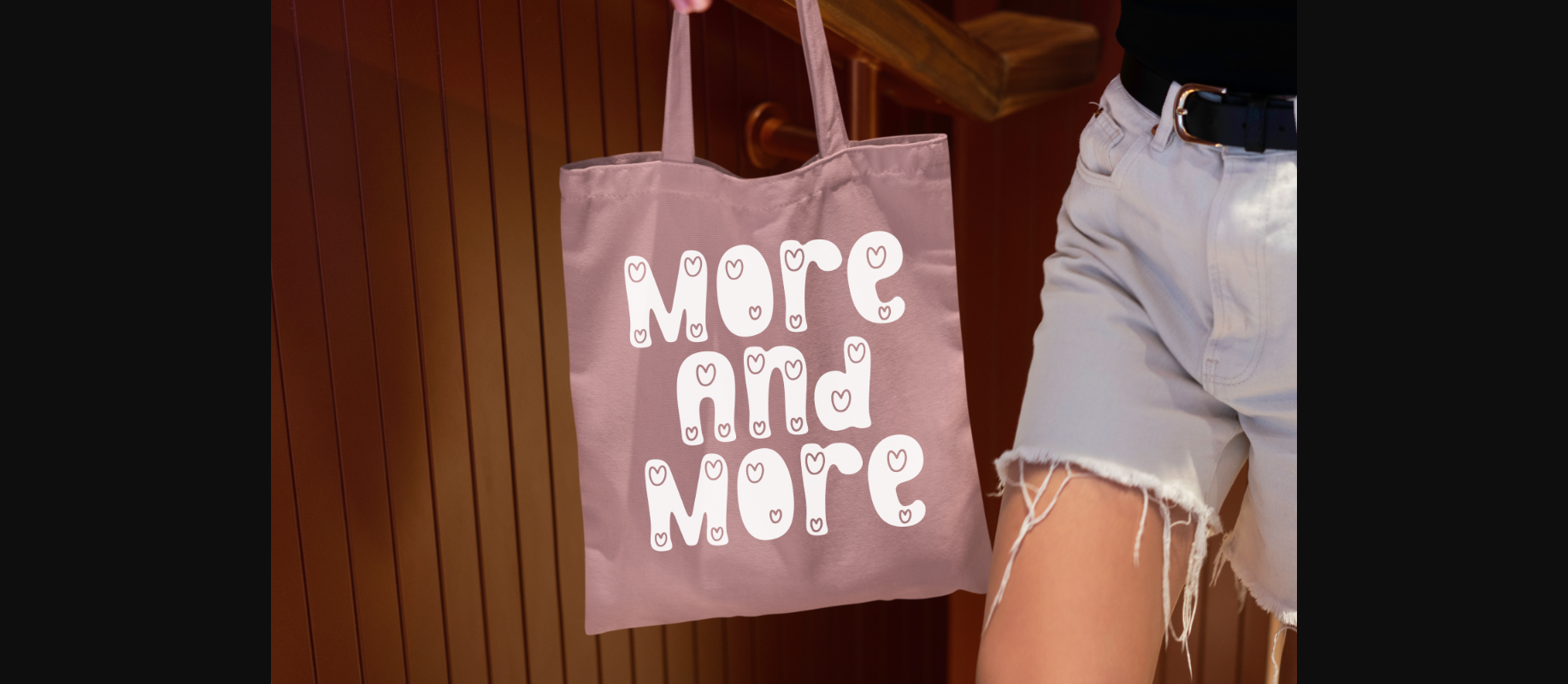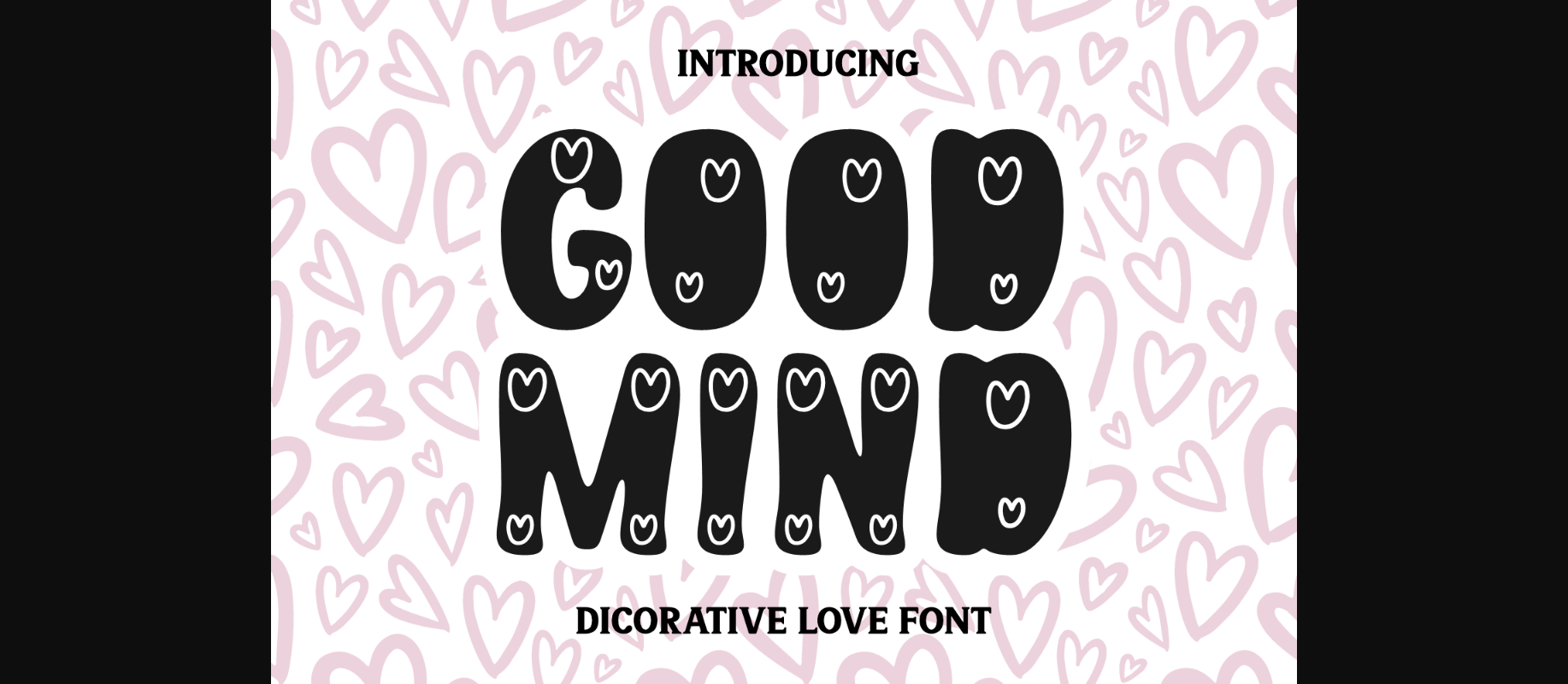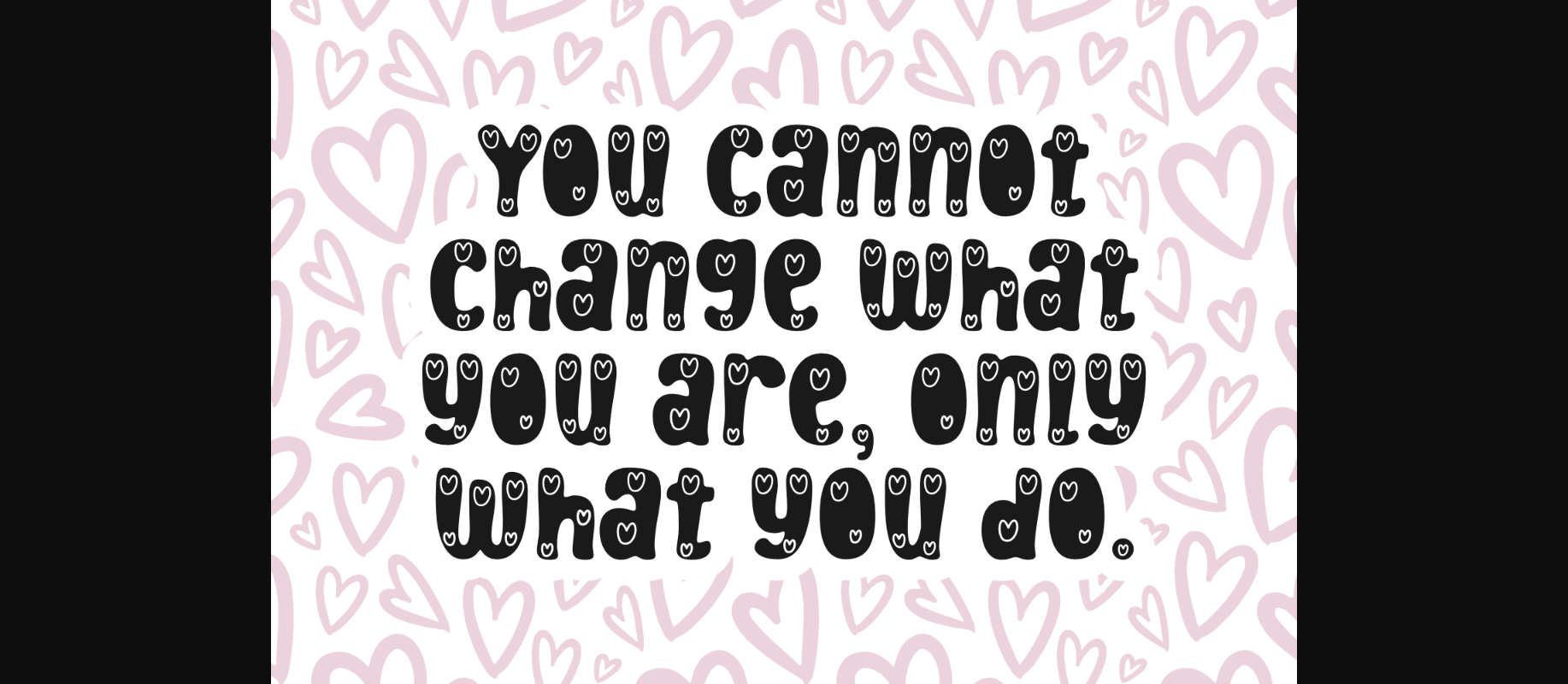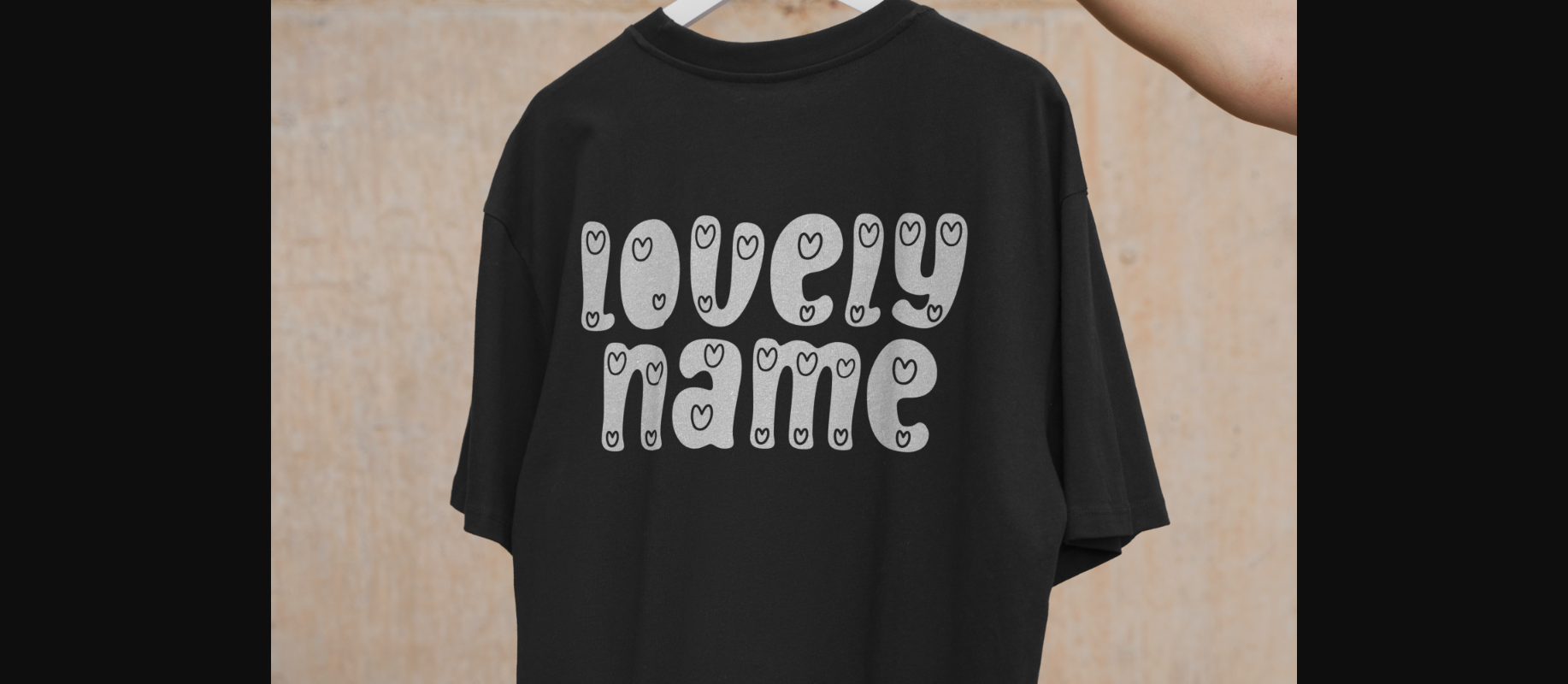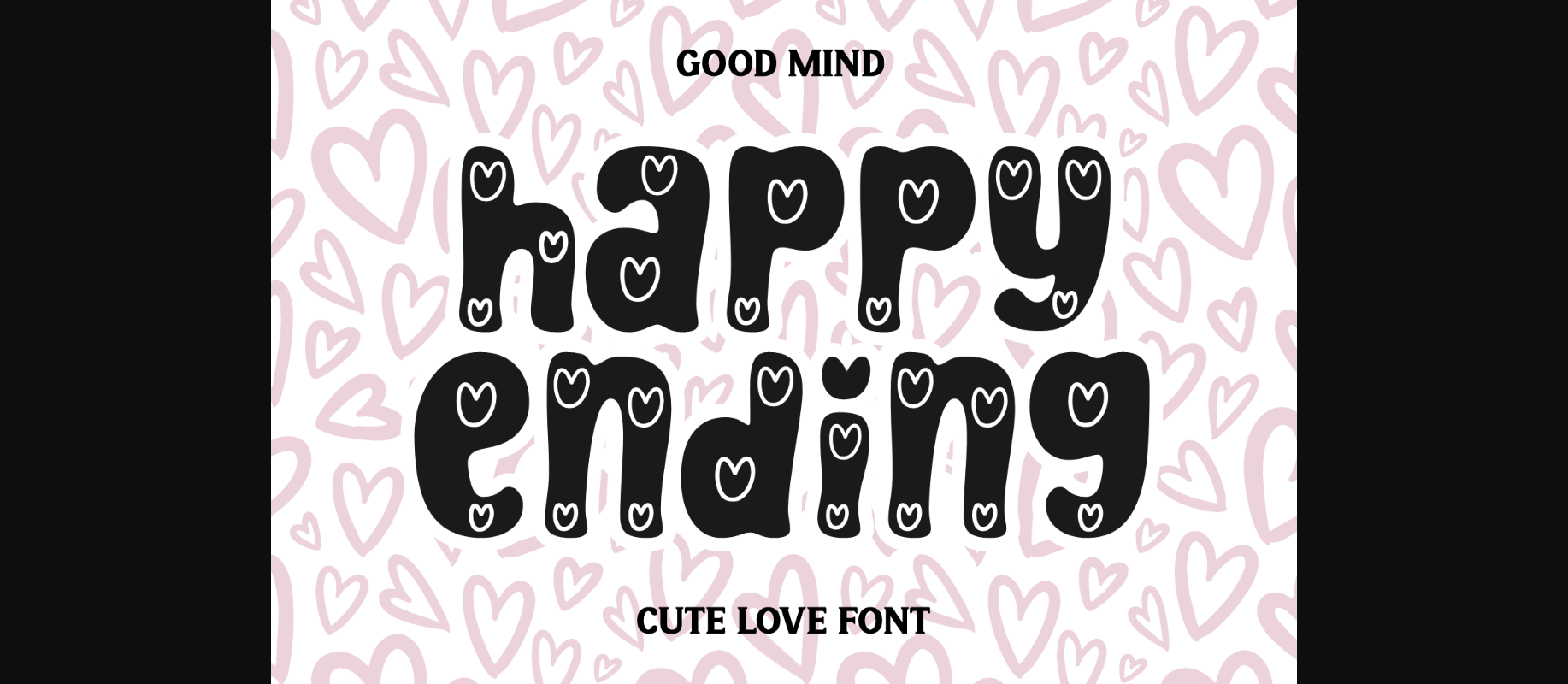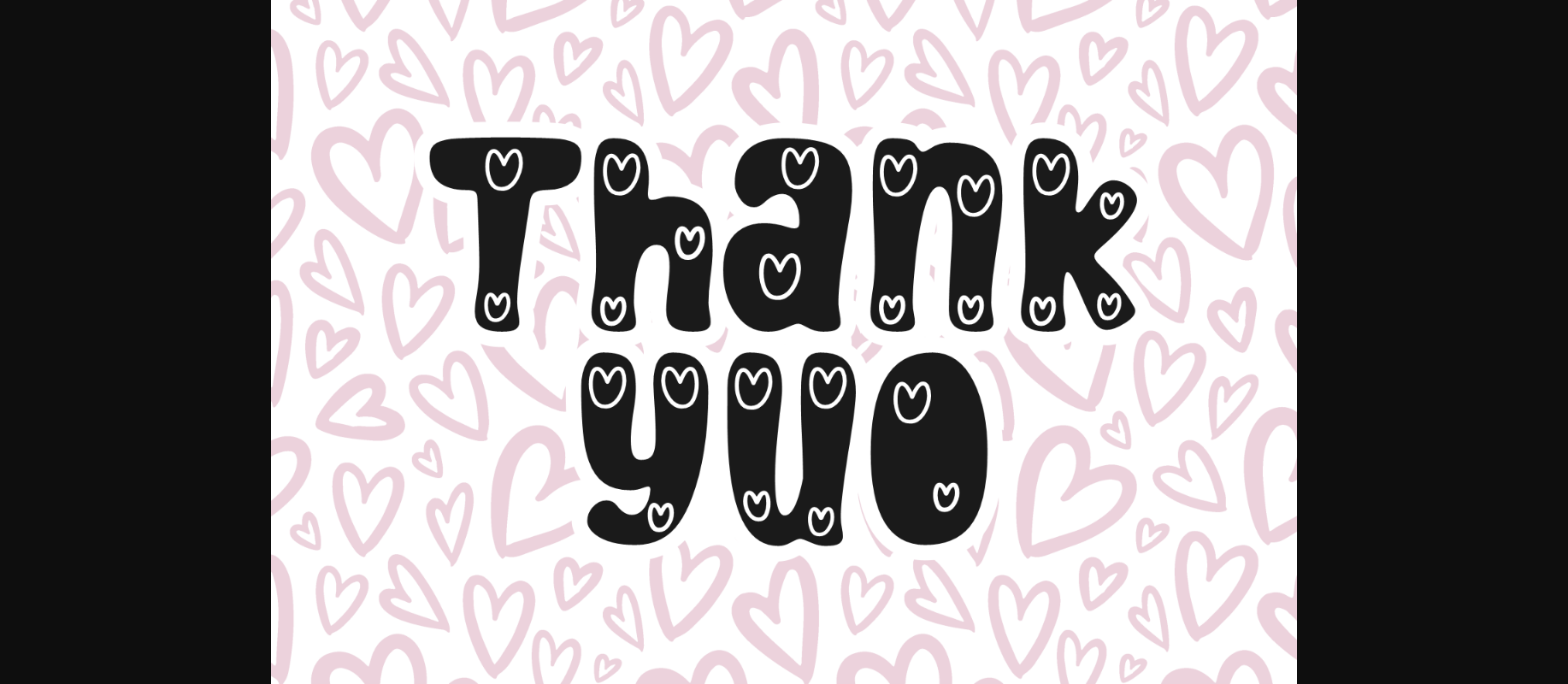
Good Mind Font
Batosay is a bold and decorative font that adds flair to your projects. Its strong, eye-catching style makes it perfect for headlines, posters, and more. With Batosay, your text will stand out and command attention with its unique and bold presence.